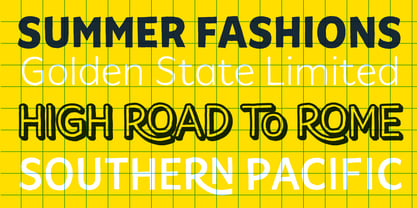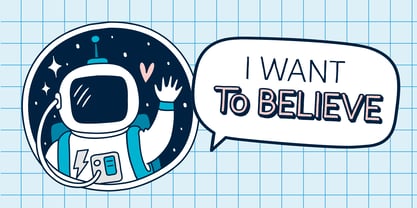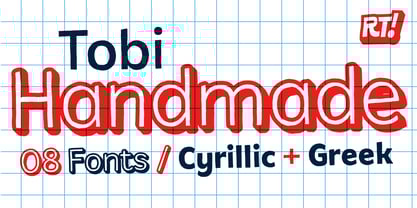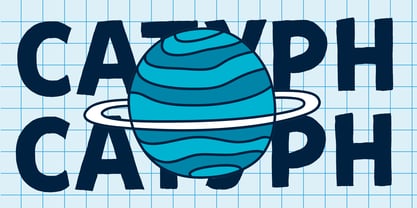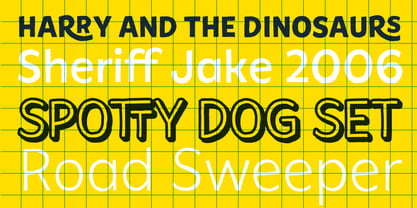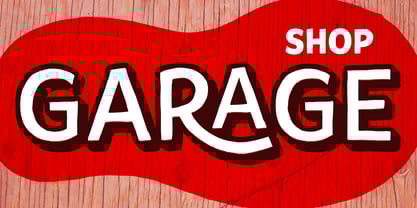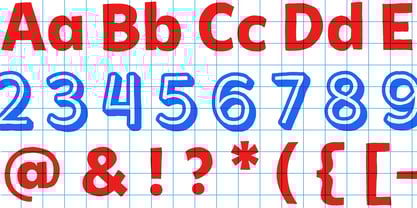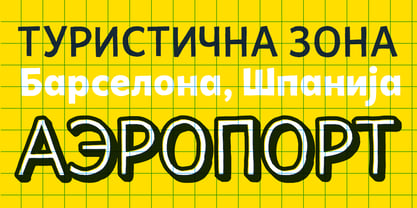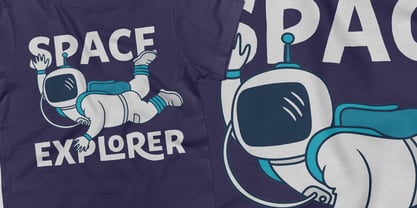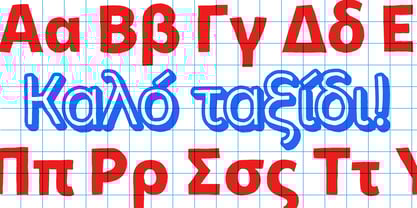
Tobi Handmade
The Tobi Handmade Font Family was designed by Rodrigo Araya Salas and published by RodrigoTypo. Tobi Handmade contains 8 styles and family package options. More about this family
Possibly the last version of "Tobi" in this handmade version, almost entirely lettered, contains Greek and Cyrillic alphabets as well as having many Alternatives, especially for informal titles.